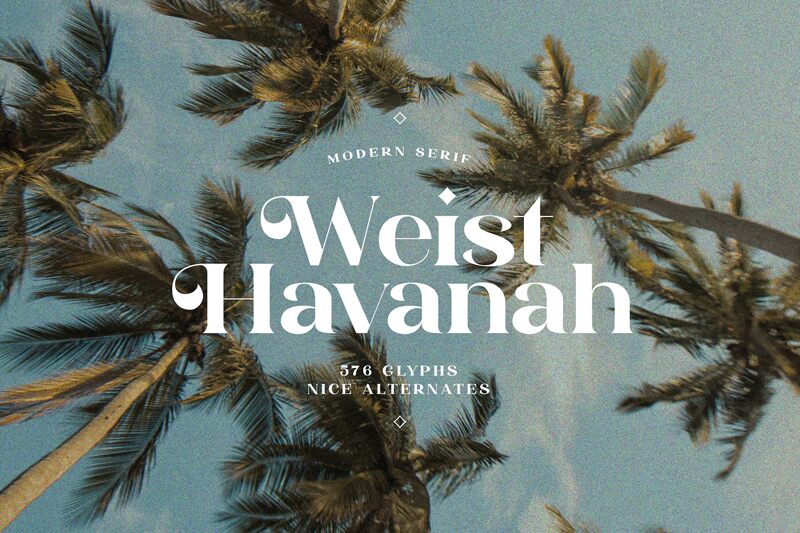
Weist Havanah font is a modern serif, display typeface with beautiful uppercase lettering and a touch of fashionable look. You will be pleased to use many options of alternates and ligatures, perfectly suitable for creating nice, fashionable, lifestyle designs such as logos, mash head, title, and wedding paper.